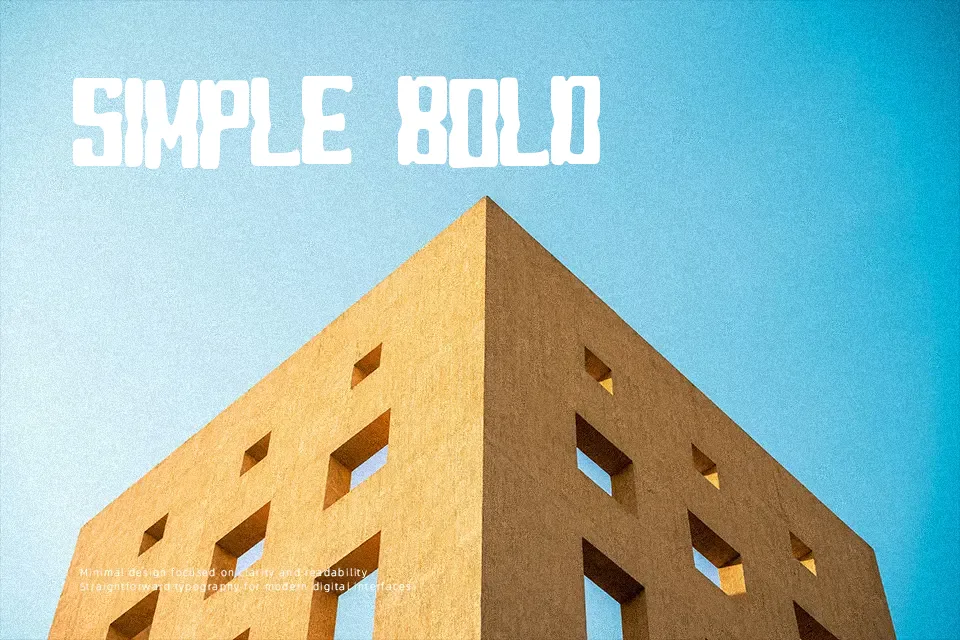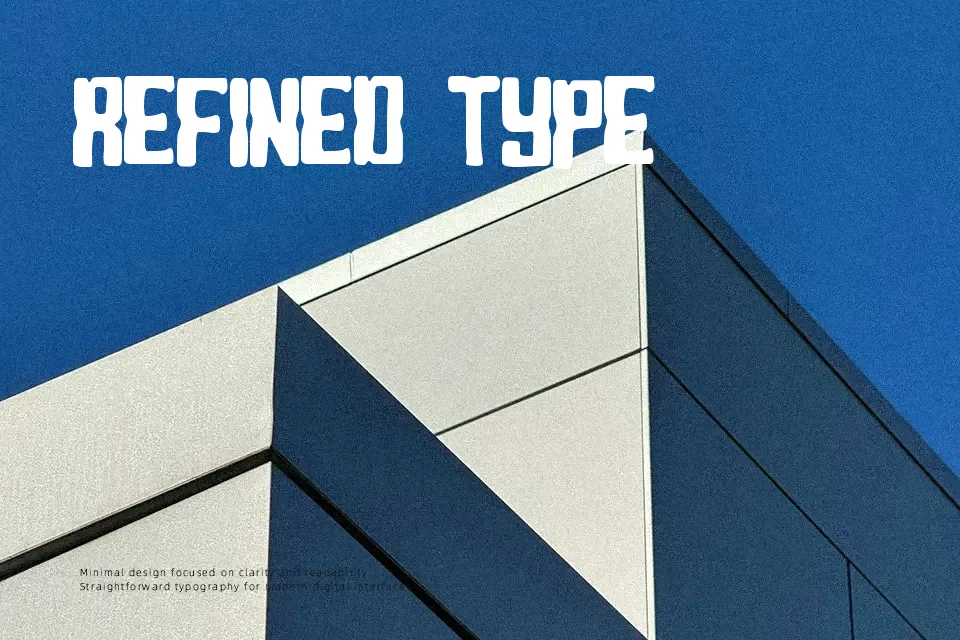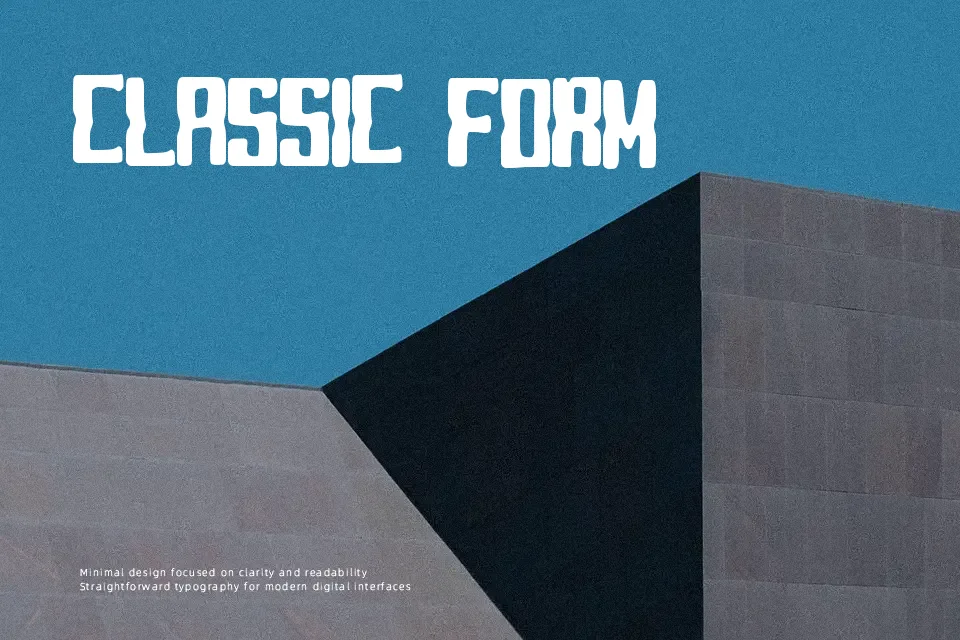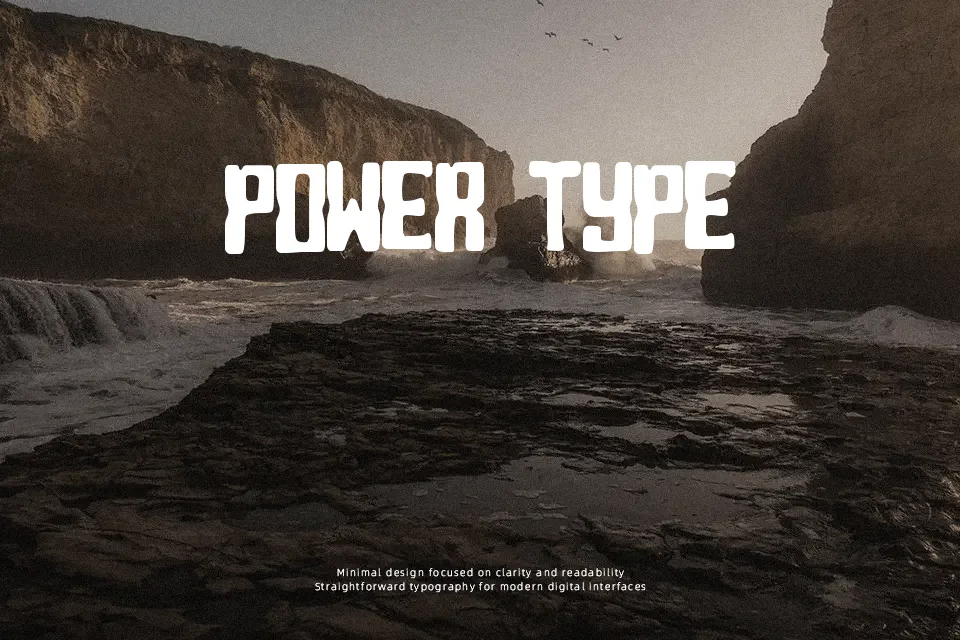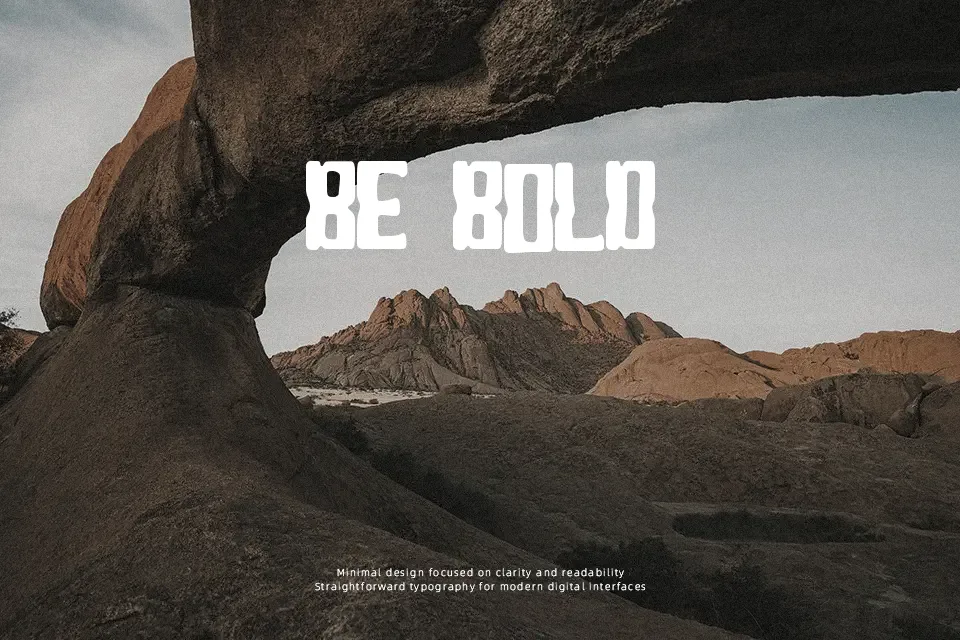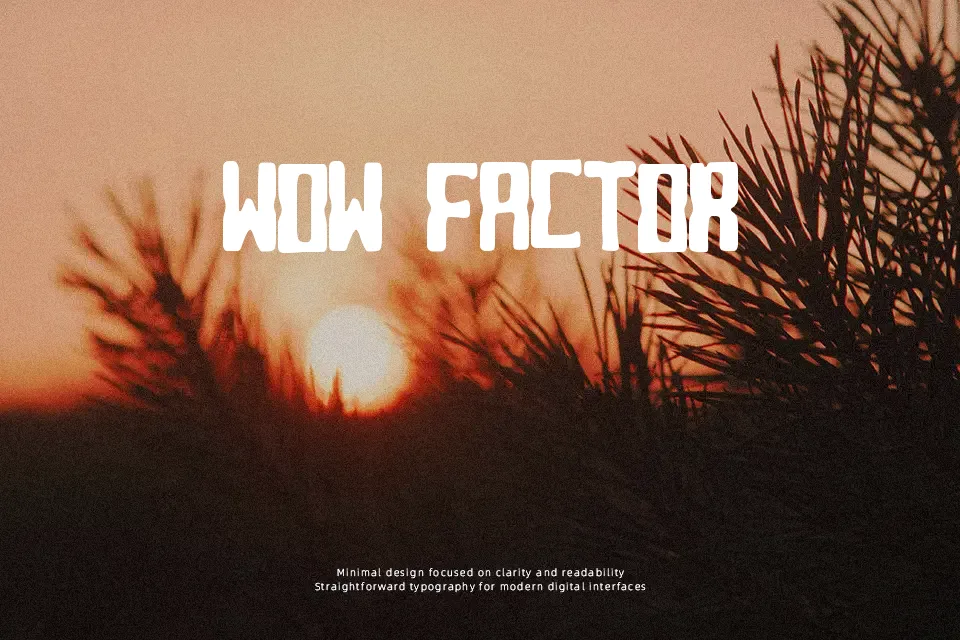
Blocky Font
Blocky by Dm Letter Studio is a striking display typeface defined by its heavy, chunky letterforms and subtle curves that soften its rigid structure. The thick strokes and tight spacing create a dense, high-impact aesthetic that feels both playful and urban. It performs exceptionally well when you need a commanding presence in modern logo branding, vibrant product packaging, and large-scale poster designs. The font’s energetic character brings life to youth-oriented campaigns and casual apparel graphics. However, due to its massive weight, it struggles in long paragraphs or small editorial layouts where legibility becomes an issue. Compared to traditional rigid block fonts, it offers a more approachable vibe without sacrificing structural boldness.
High-impact modern logo designs
Vibrant product packaging and labels
Youth-oriented apparel graphics
Attention-grabbing large posters
Lengthy editorial body text
Small digital UI elements
Formal corporate documents
Perfect for branding, kids, and logo, with a bold and cartoon style.